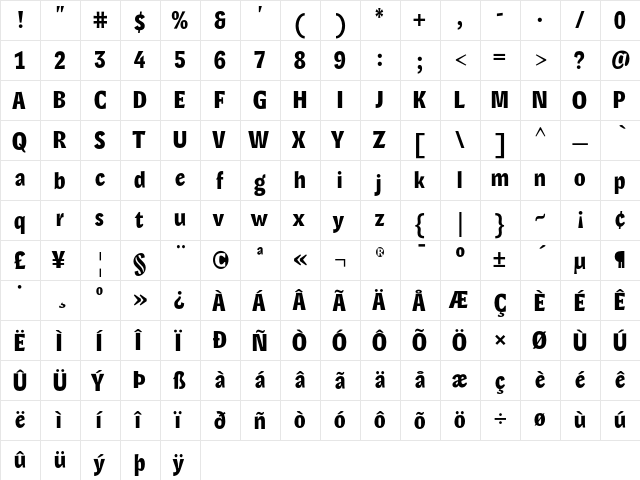
LexiconHeadline Regular
Design Context for LexiconHeadline Typeface
LexiconHeadline is a composed and adaptable typeface that performs quietly and consistently across a wide range of design contexts.
Pro Tip: Use LexiconHeadline in both headline and body roles to test its range before committing to a single application.